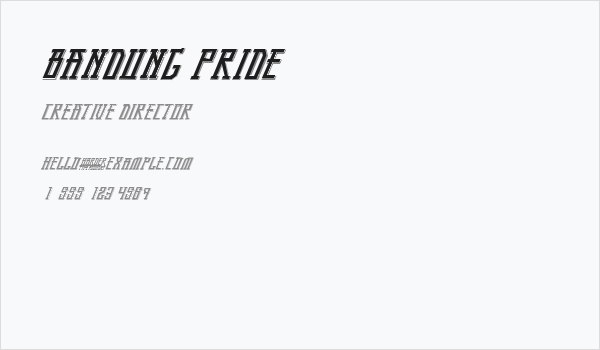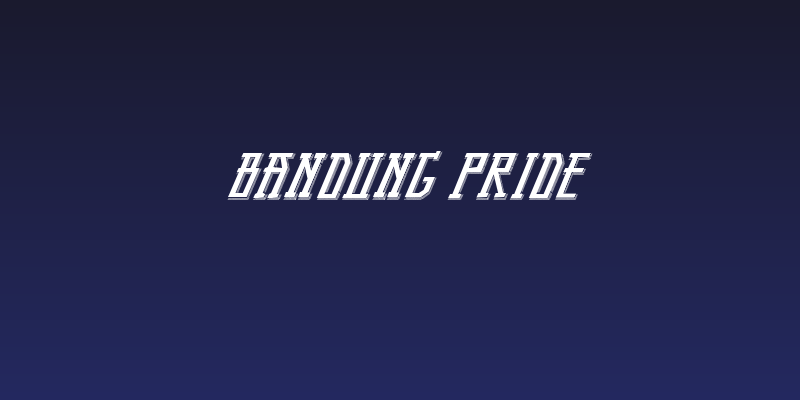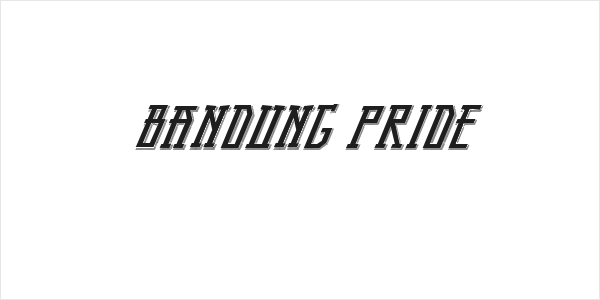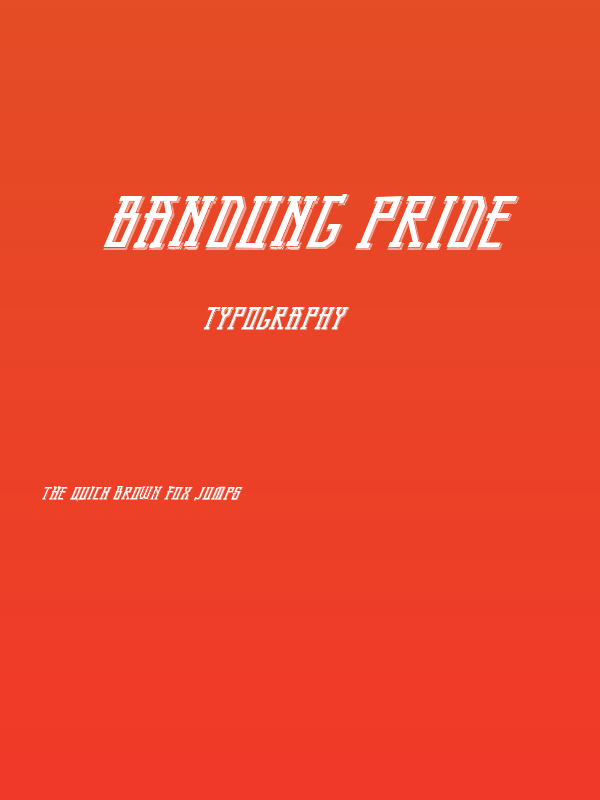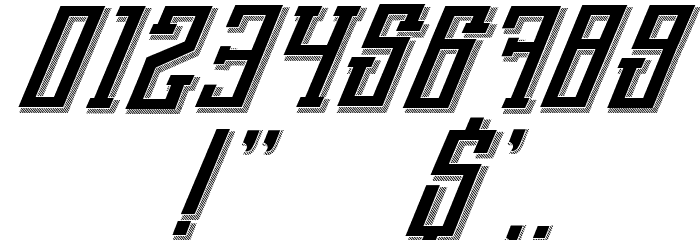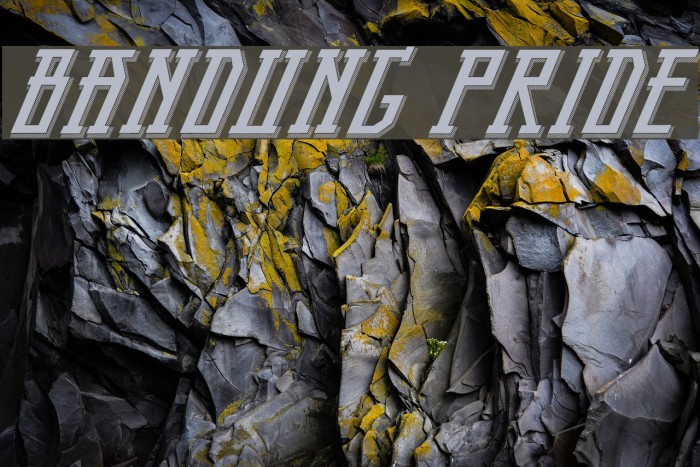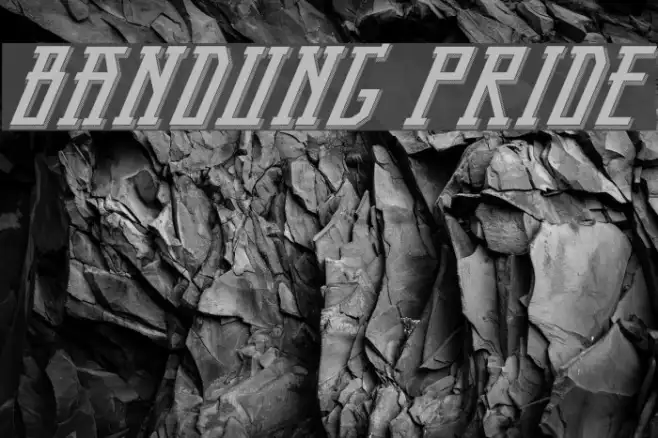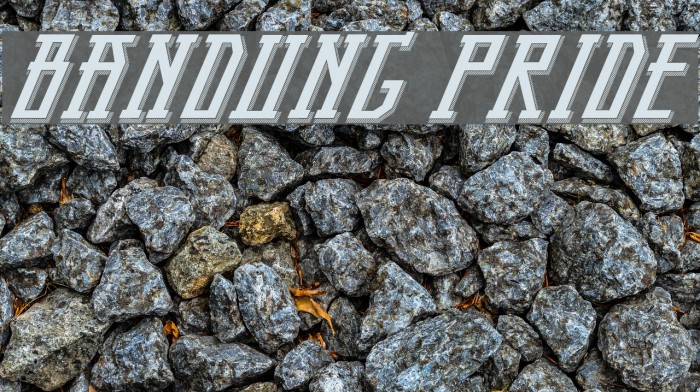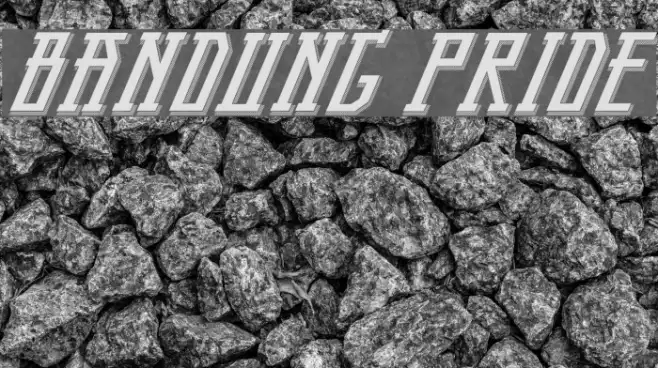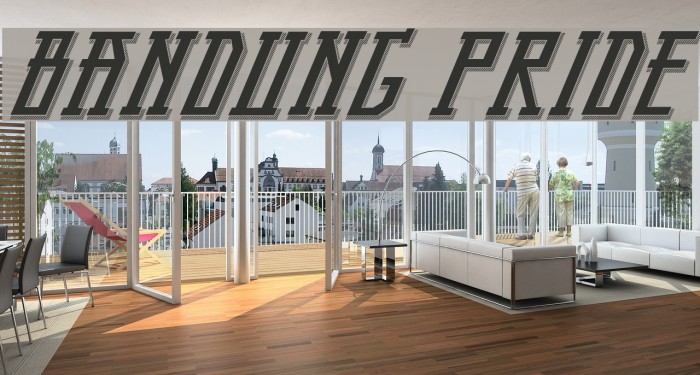
Bandung Pride Font
Bandung Pride Description
This font features a bold and dynamic design with a strong emphasis on angular lines and sharp edges. The characters are slightly slanted, giving a sense of movement and energy. Each letter is meticulously crafted with a combination of thick and thin strokes, creating a high contrast that enhances its visual impact. The font has a modern and industrial feel, making it suitable for projects that require a bold statement. The uppercase and lowercase letters maintain a consistent style, while the numerals and special characters complement the overall design. The spacing between characters is tight, which adds to the compact and cohesive appearance of the text.
| Use Case | Logos, Headlines |
| Proposed Projects | Ideal for branding, posters, sports team logos, and dynamic headlines. |